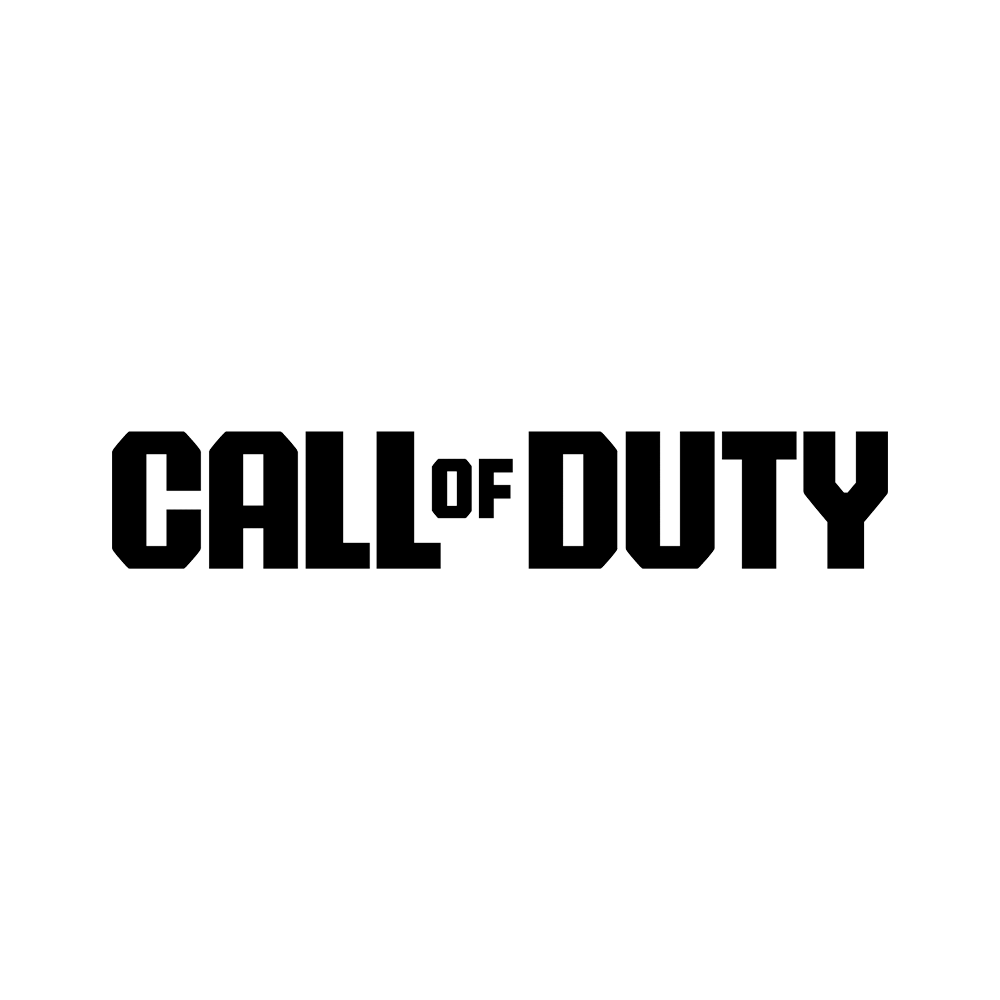
Call of Duty Font
Fonts in UseCall of Duty is a first-person shooter video game franchise that features a series of intense military combat simulations and multiplayer modes, with a focus on fast-paced gameplay and cinematic storytelling.
The old Call of Duty logo uses Impact font, a sans-serif typeface designed by Geoffrey Lee and released by the Stephenson Blake foundry in 1965.